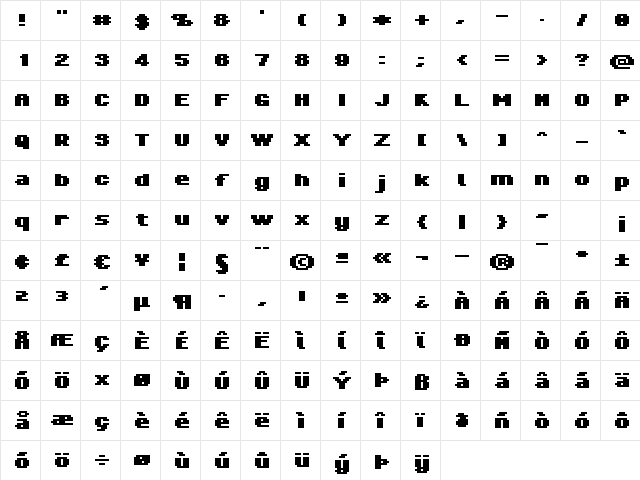
Capacity Heavy Regular
Design Context for Capacity Heavy Typeface
Capacity Heavy is a composed and adaptable typeface that performs quietly and consistently across a wide range of design contexts.